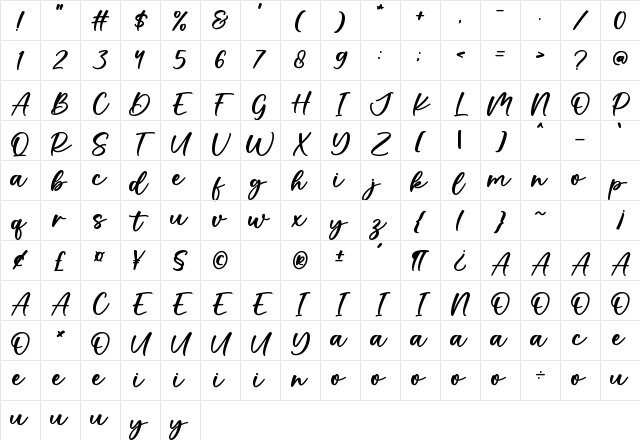
Adore Regular
Design Context for Adore
Adore is a composed and adaptable typeface that performs quietly and consistently across a wide range of design contexts.